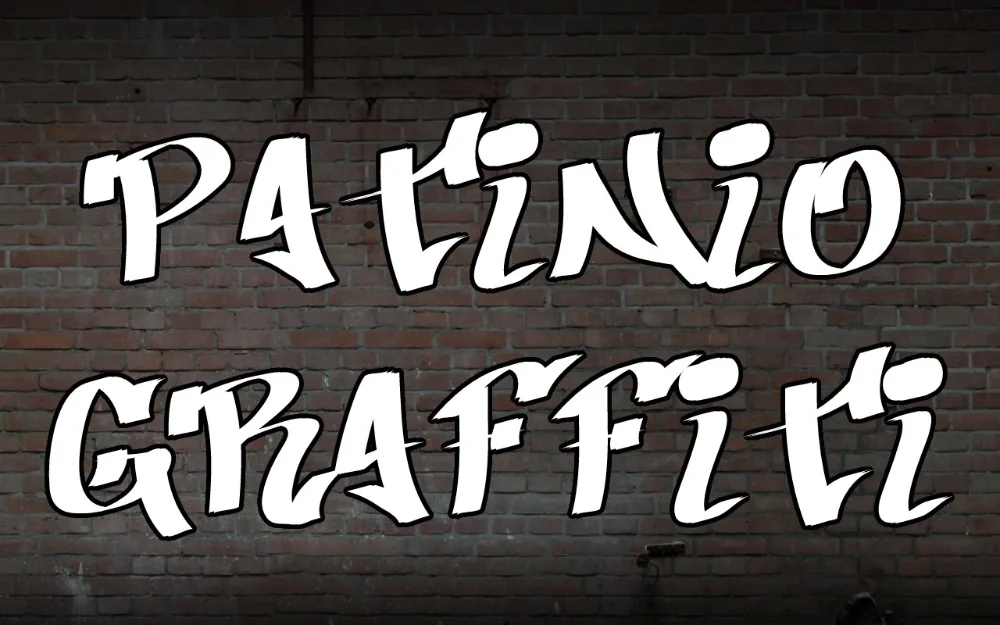
Weathered Patina Street Font
A weathered graffiti font lives or dies on how it behaves at real sizes, and this one has been tested at both extremes. Faded and patchy, like a piece that has been up on a wall for years. The gentlest textured option in the collection.
Fine mottling covers the surface of each letter and the edges soften unevenly, suggesting sun and rain rather than damage. Colour shows through the gaps, so it layers well over photography.
Ideal for travel prints, vintage-look apparel, coffee packaging, and moody poster art.
It reverses well out of dark backgrounds, which is worth remembering if the artwork is heading for a black shirt or a night-time photograph.